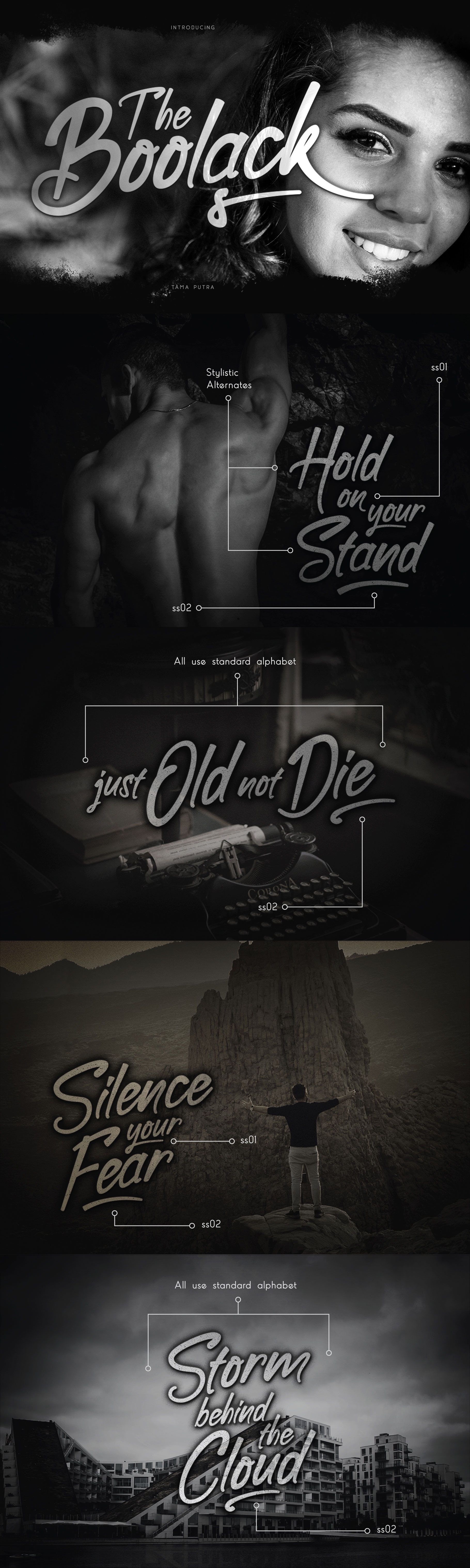
Boolack Elegant Typeface
Boolack Typeface
Boolack is a handwritten typeface. It is suitable for any design needs, branding, cover title, t-shirts, posters and more.
It includes multi-lingual and currency support, numerals, and punctuations. It comes comes with stylistic alternates, ss01, ss02.
- Character Set A-Z (Uppercase & Lowercase)
- ss01, ss02
This typeface can be put to many uses:
- Poster
- Banner Design
- T-shirt
- Another end products
Boolack typeface is suitable font for creating beautiful things and many creative work.